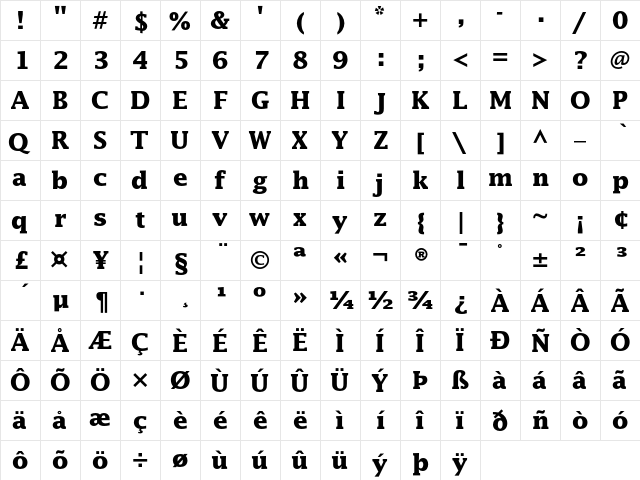
Lucida Bold
Design Context for Lucida Typeface
Lucida takes a measured approach to typography — its balanced proportions and neutral character make it a reliable workhorse for both digital and print work. The heavy weight commands attention and anchors typographic hierarchies.
Pro Tip: Pair Lucida with a font of contrasting weight or personality to build a more expressive typographic hierarchy.